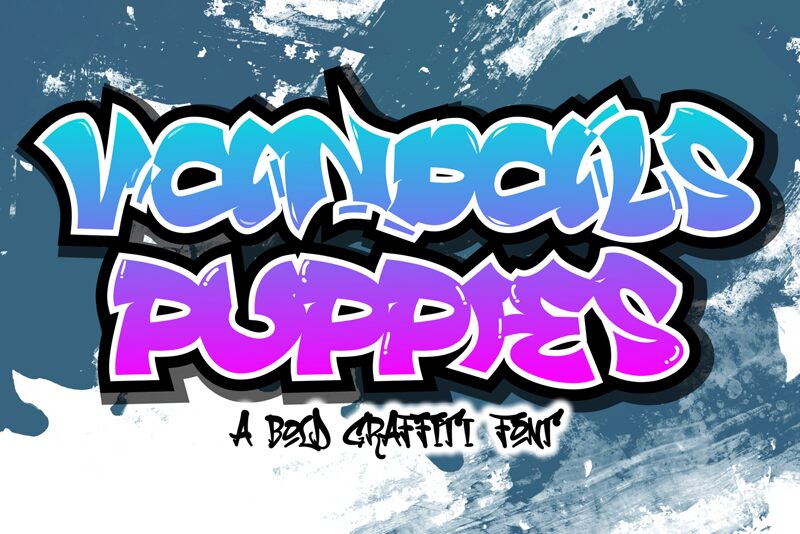
Vandals Puppies
Vandals Puppies, designed by Si Panji, is an extra-bold graffiti font that demands attention. With its unique style and semi-expanded width, this font is perfect for projects that require a bold statement. It's suitable for anything from edgy music posters to streetwear brand logos. The eye-catching design will make your message stand out and leave a lasting impression on your audience. Give your project an urban feel with Vandals Puppies – the perfect choice for those who want to make a statement with their typography.